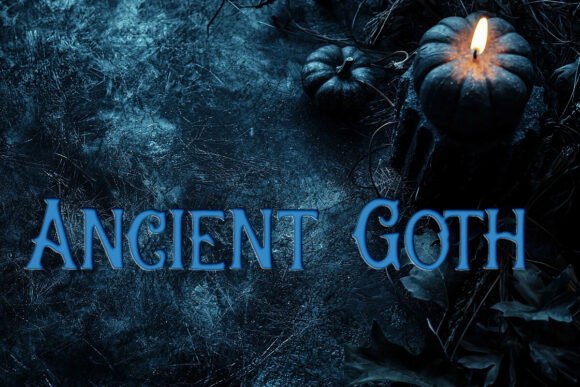
The Timeless Allure of Ancient Goth Font
As designers, we’ve all been there – staring at a blank canvas, searching for the perfect font to bring our vision to life. The thrill of the hunt, the rush of excitement when we finally find ‘the one’ – it’s a moment that never gets old. And for those who crave a touch of the mysterious and the unknown, the Ancient Goth font is about to become your new best friend.
This unique typeface is more than just a pretty face – it’s a statement piece that’s perfect for making a lasting impression. With its distinctive style, the Ancient Goth font is an outstanding choice for a multitude of creative projects, from shirt designs and stickers to branding initiatives and magazine layouts. Its versatility and charm make it a valuable addition to any designer’s toolkit, and its timeless aesthetic ensures that it will remain a classic for years to come.
Ancient Goth Font Key Features
- Unique Characteristics: Ancient Goth Font features intricate, gothic-inspired designs with ornate details, making it ideal for use in titles, headings, and other display typography.
- Font Family: The font family includes a range of weights, from Light to Extra Bold, allowing users to customize the font’s appearance to suit their needs.
Designer Review: Ancient Goth Font
At first glance, the Ancient Goth font is a stunning and unique addition to any design project. ✨ Its bold, mysterious aesthetic is perfect for creating a sense of drama and intrigue. The font’s intricate details and ornate flourishes add a touch of sophistication, making it ideal for luxury brands, dark fantasy, and horror-themed projects.
However, there are some limitations to consider: ⚠️ The font’s complexity can make it difficult to read at small sizes, and the ornate details can sometimes overpower the text. Additionally, the font’s usage may be restricted by licensing agreements, so be sure to check the terms before using it in your project.
In terms of customization, the Ancient Goth font is relatively flexible, allowing designers to adjust the font’s color, size, and spacing to suit their needs. However, the font’s intricate details may not lend themselves to drastic changes without losing the font’s unique character.
- Unique and dramatic aesthetic ✨
- Perfect for luxury brands, dark fantasy, and horror-themed projects
- Relatively flexible in terms of customization
- May be difficult to read at small sizes ⚠️
- Ornate details may overpower text at times
Overall, the Ancient Goth font is a great addition to any designer’s toolkit, but it’s essential to consider its limitations and usage restrictions before incorporating it into your project.
The Ancient Goth Font is perfect for:
- Creating dramatic and spooky designs for Halloween or Gothic-themed projects.
- Adding a touch of elegance and sophistication to invitations or wedding stationery.
- Designing posters or flyers for alternative music or art events.